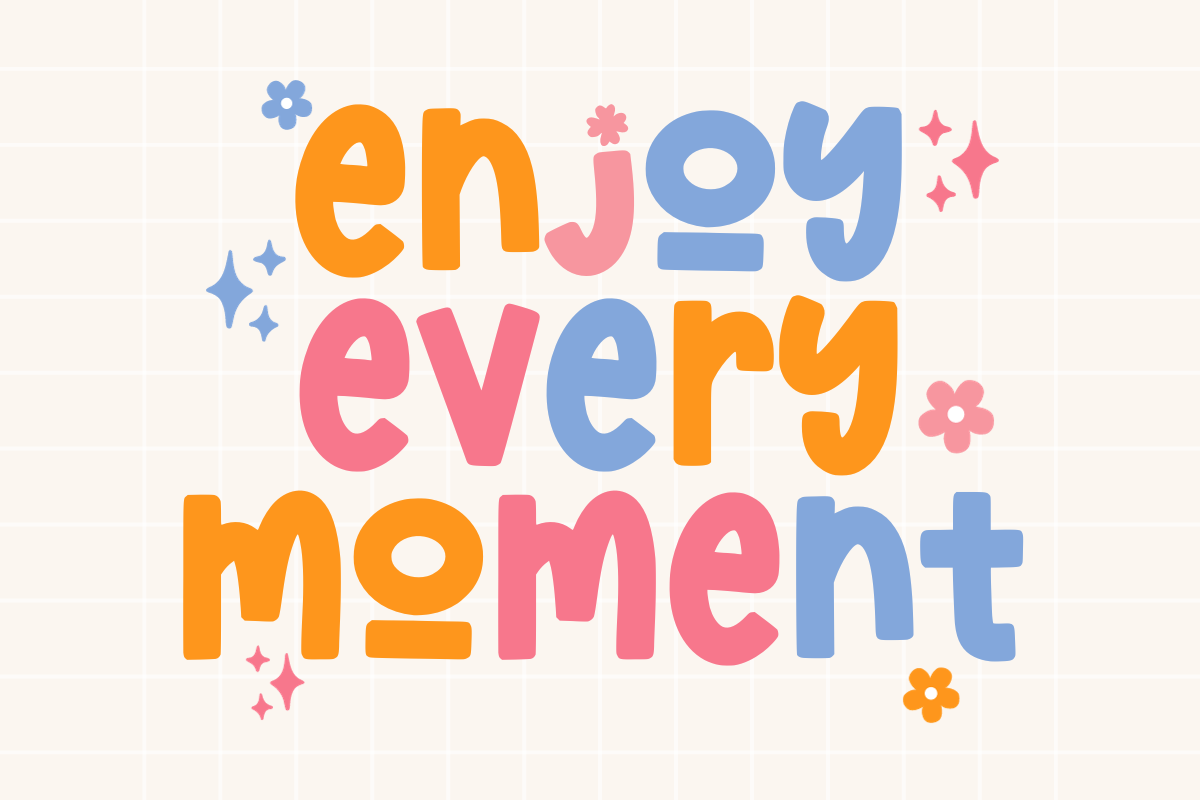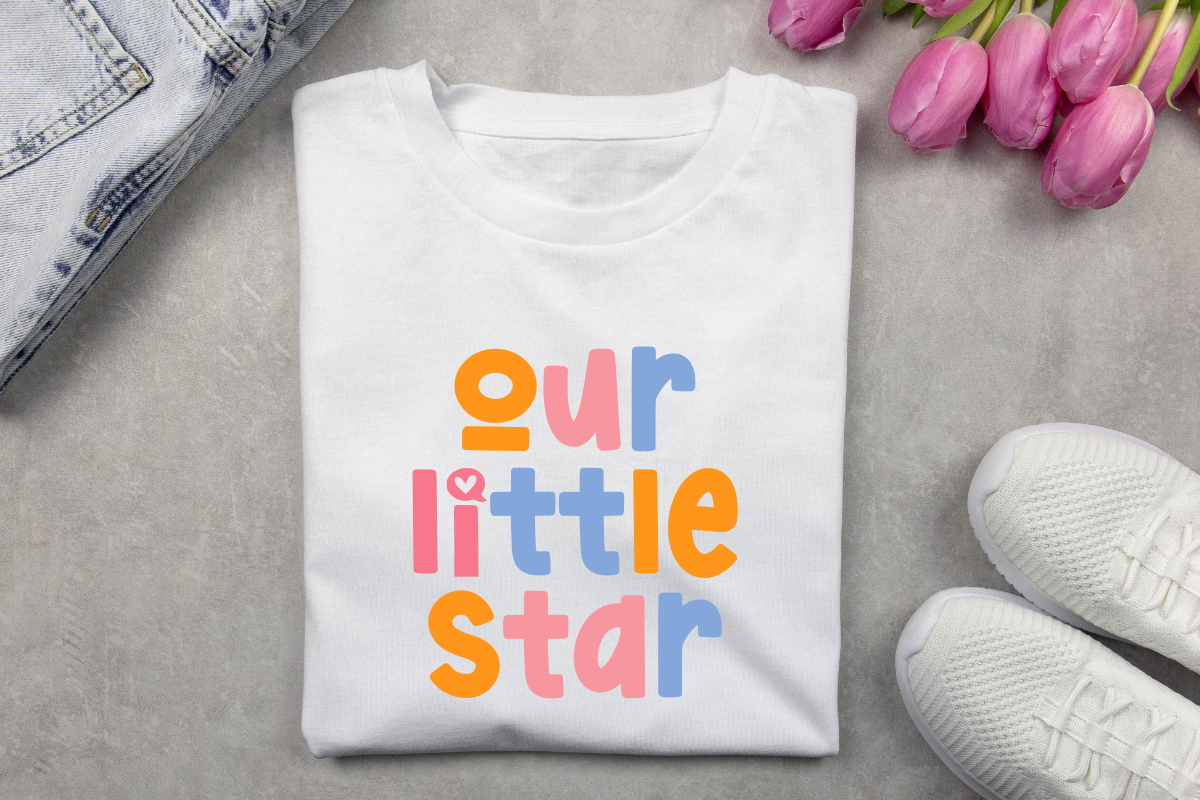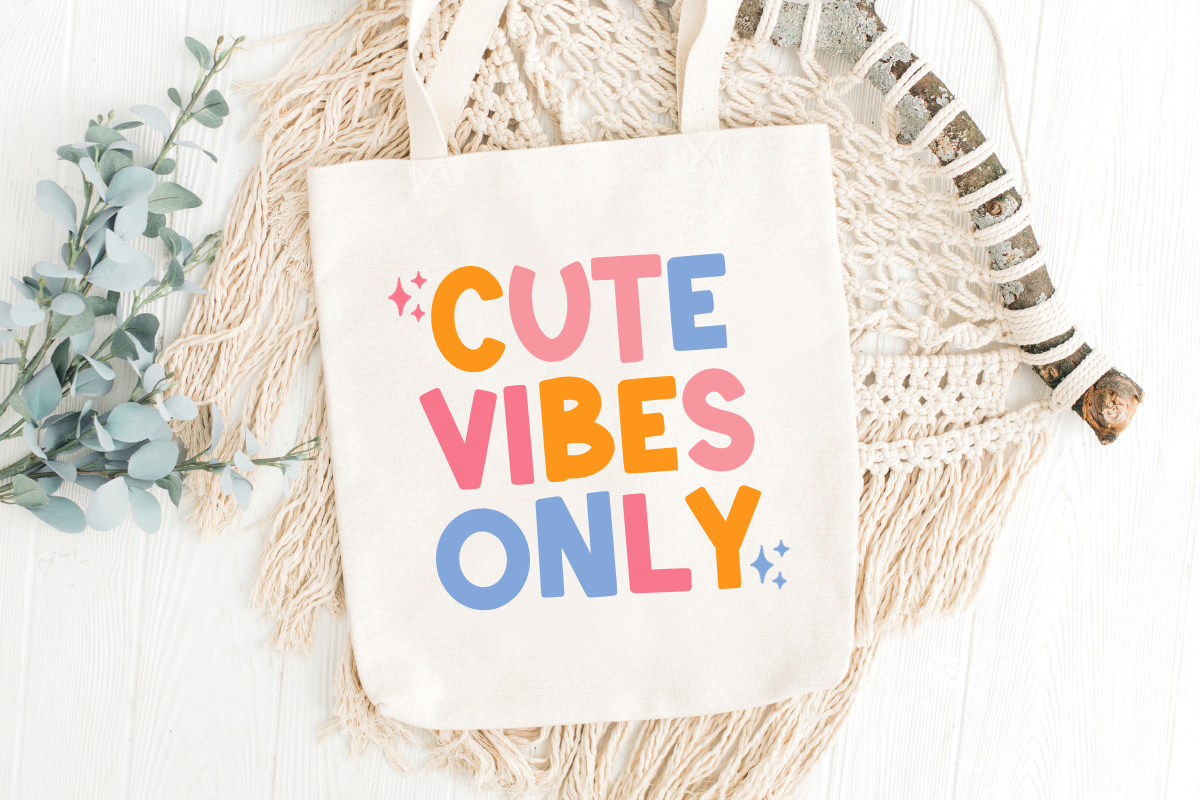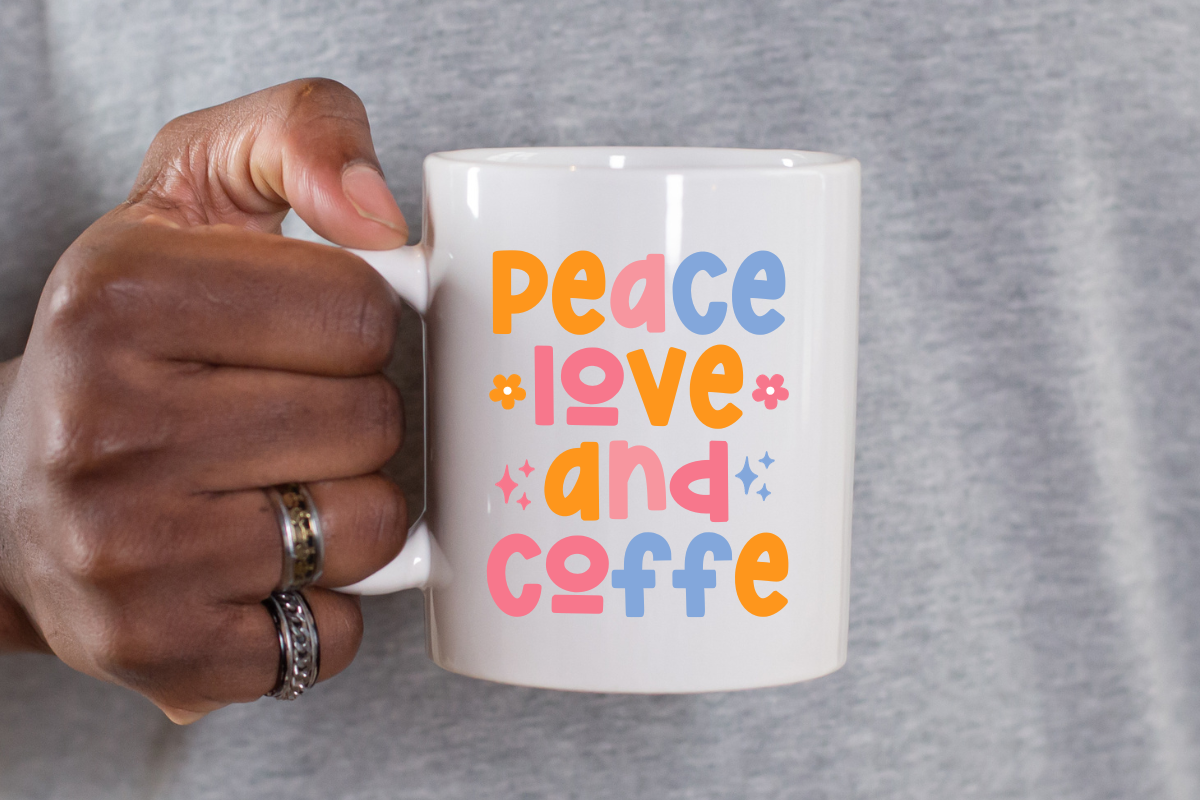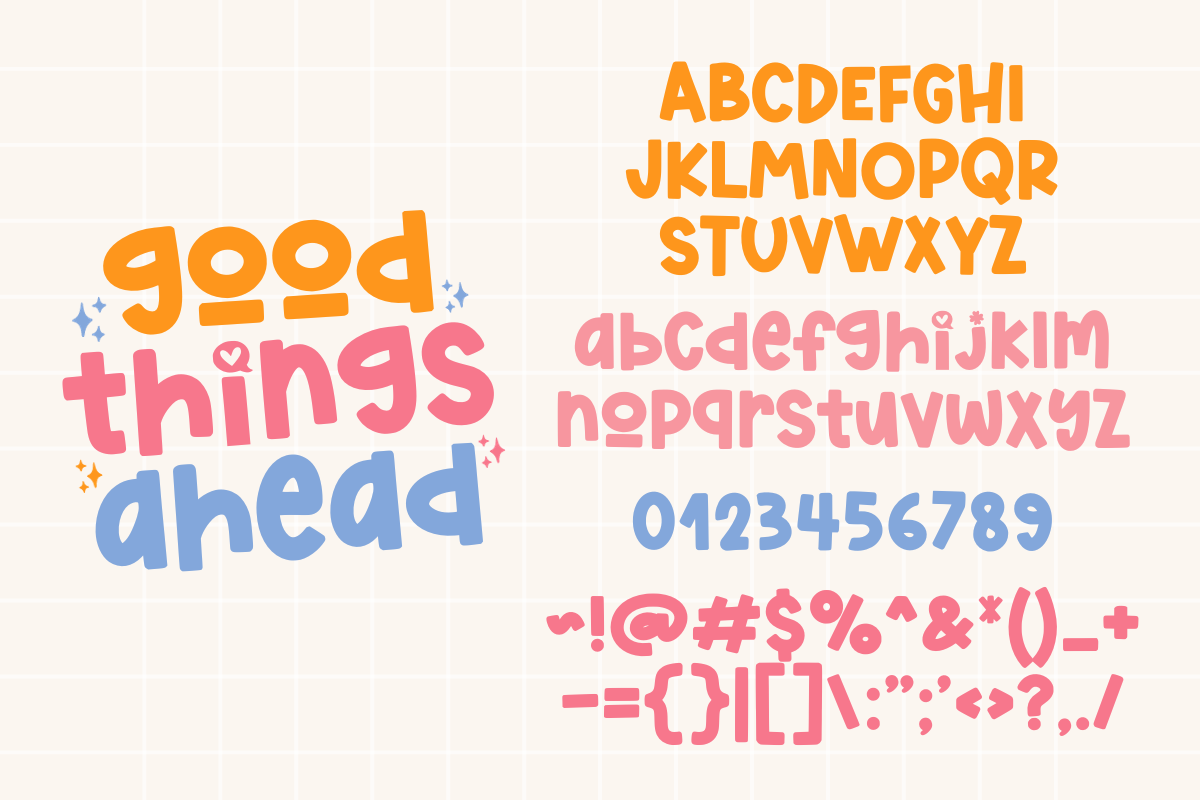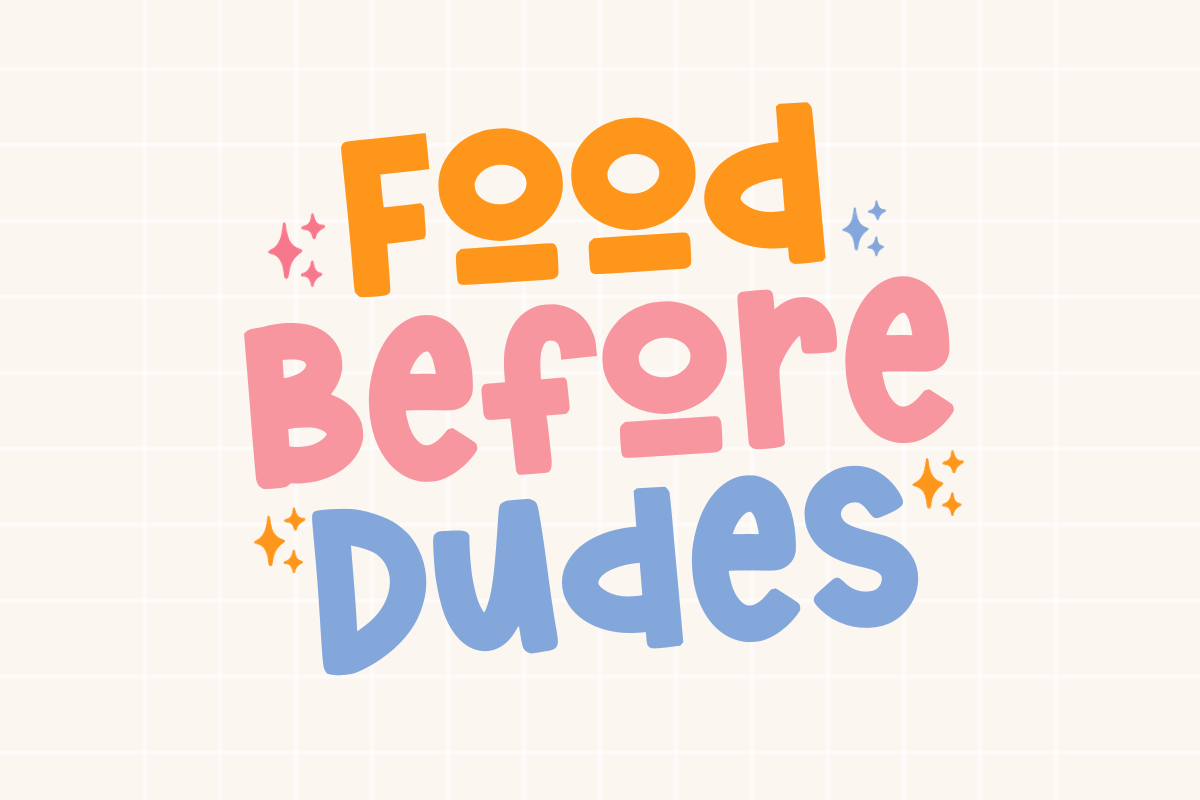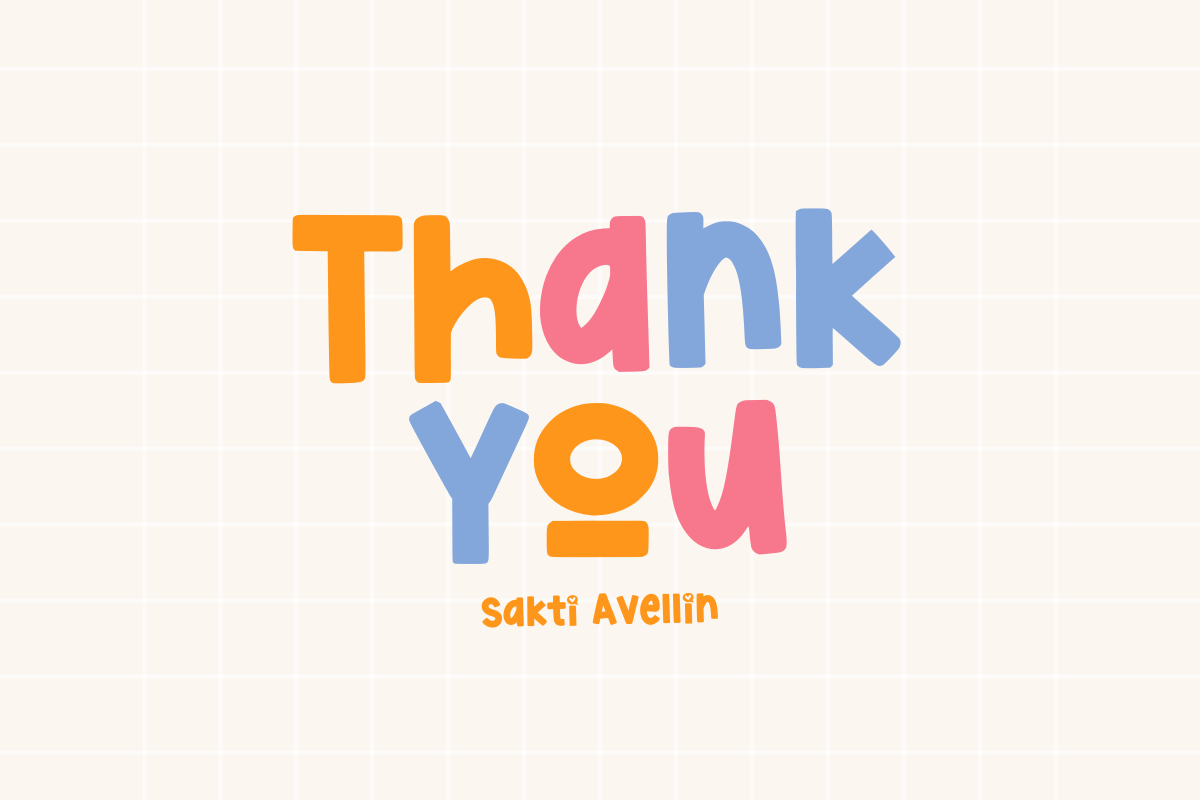
Thick Love
Introducing Thick Love, an alluring font that exudes charm and playfulness. Teeming with uniqueness, this font promises an interesting blend of uppercase and lowercase letters, perfect for making your designs stand out with an extra dollop of cuteness. Thick Love's versatility shines in various crafts, transforming ordinary mugs, stickers, and t-shirt designs into engaging pieces of art. It's especially stellar when used for uplifting quotes and celebrating memorable birthdays. Plus, it's a top choice for sublimation and craft enthusiasts. Welcome to the whimsical world of Thick Love, where every stroke makes your design irresistibly cute and engaging!